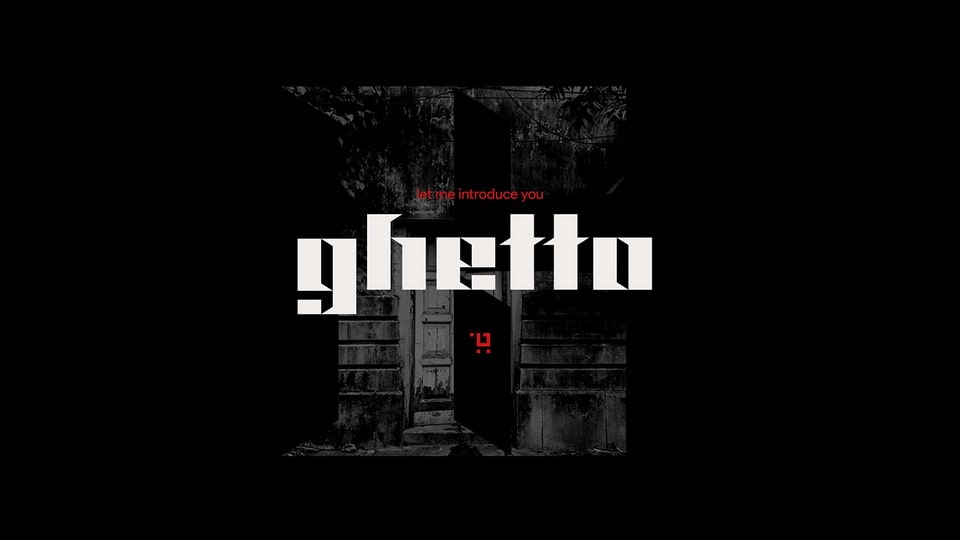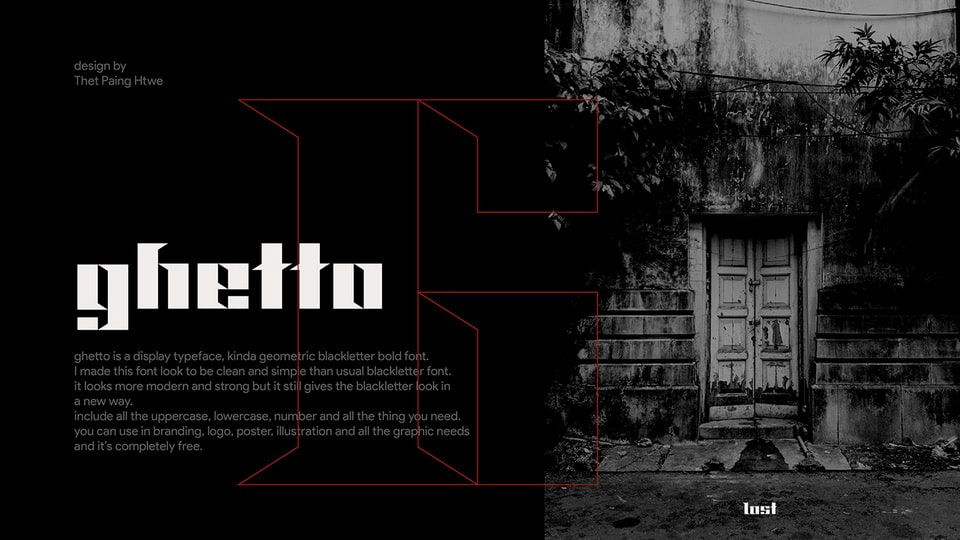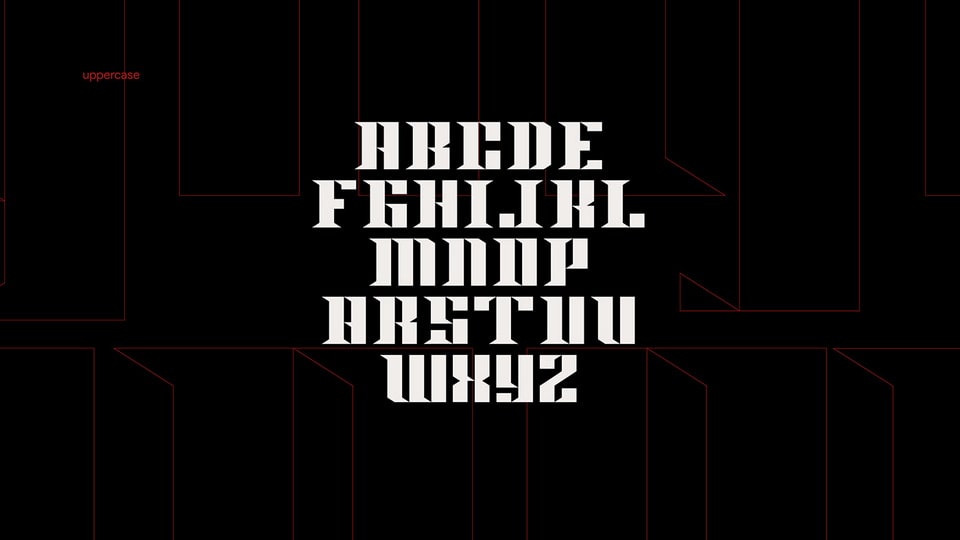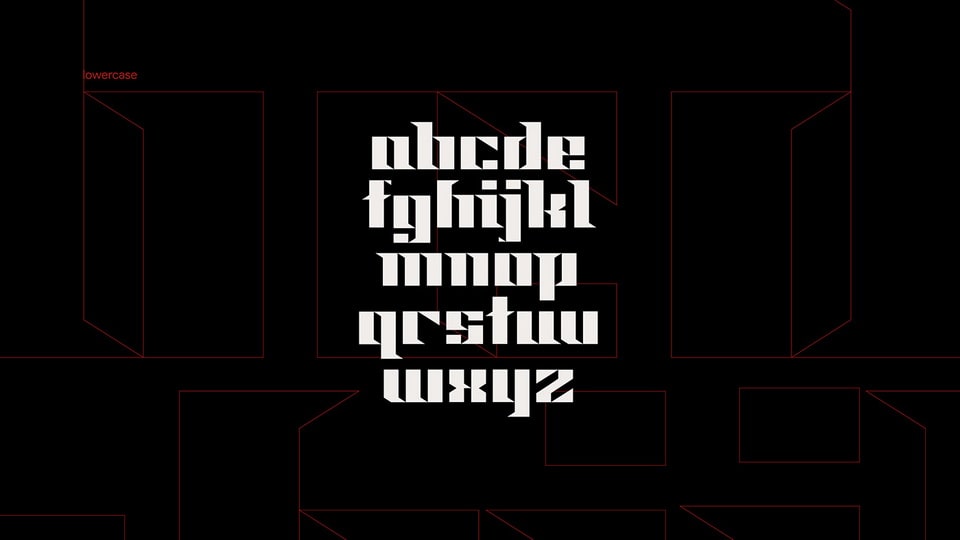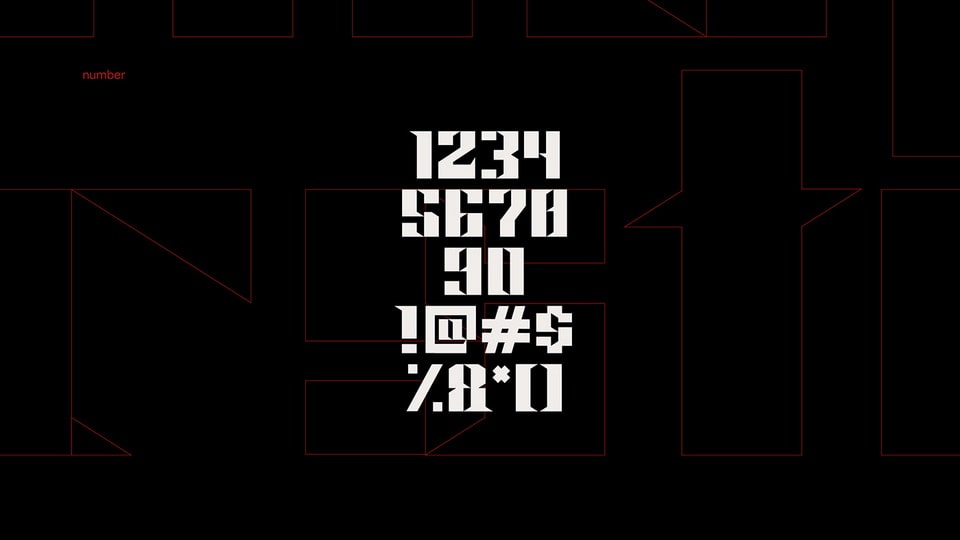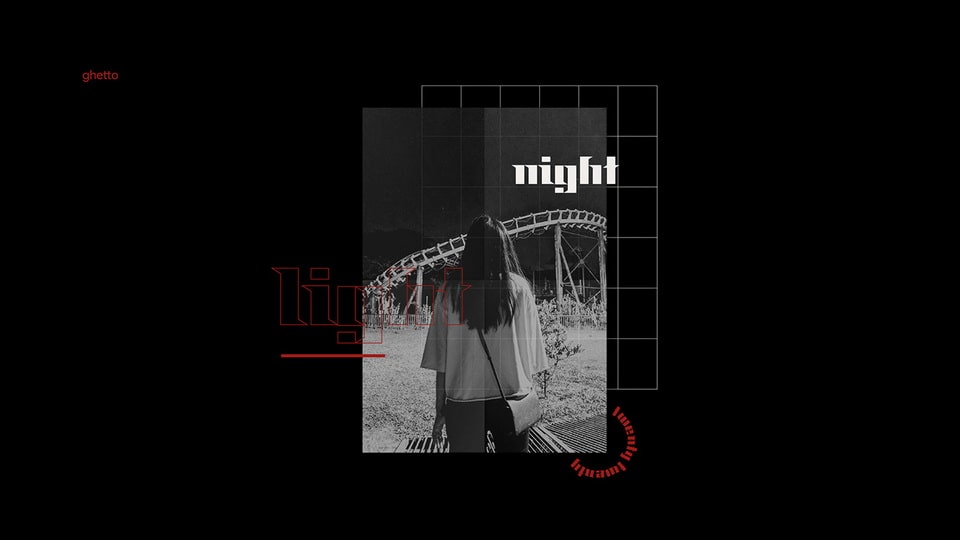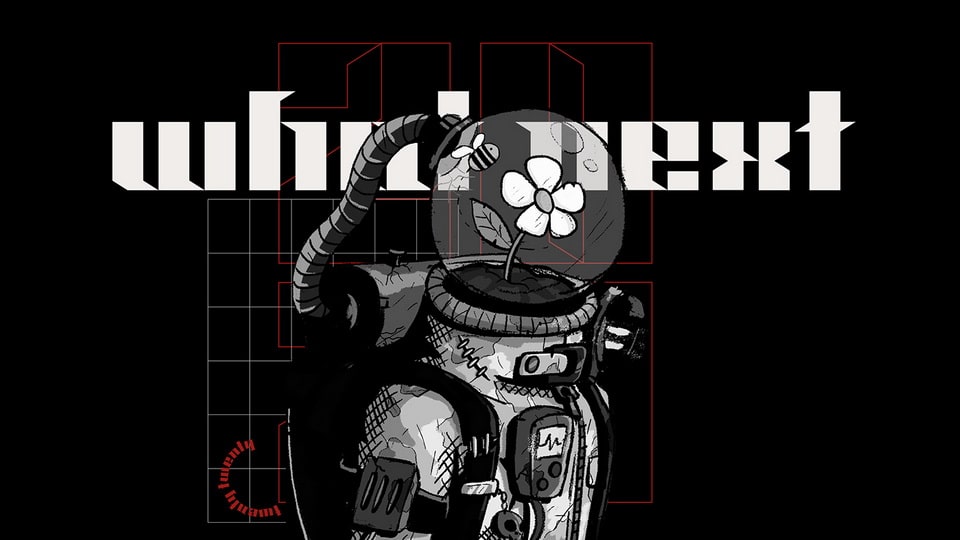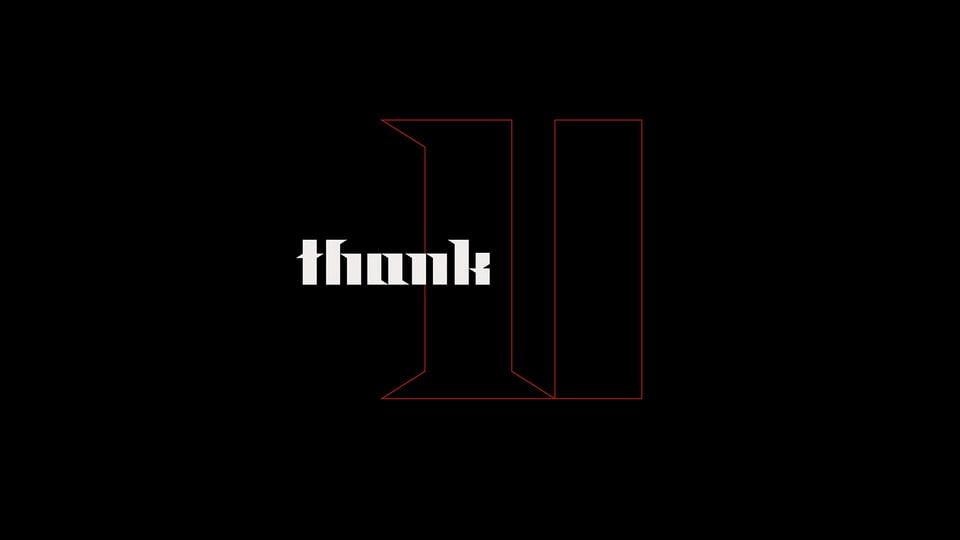
Ghetto is a display typeface, kinda geometric blackletter bold font. This font has made to look clean and simple than usual blackletter font. It looks more modern and strong but it still gives the blackletter look in new way.
Include all the uppercase, lowercase, number and all the thing you need. You can use it in branding, logo, poster, illustration and all the graphic needs.